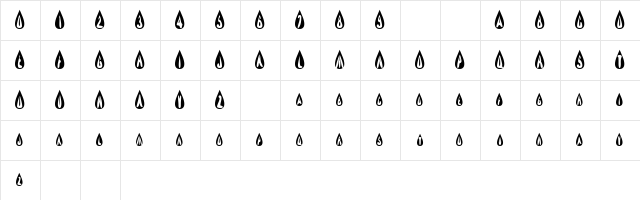
Complete efBURNER Regular glyph index. Displaying only characters natively supported by efBURNER Regular font.
efBURNER is a composed and adaptable typeface that performs quietly and consistently across a wide range of design contexts.